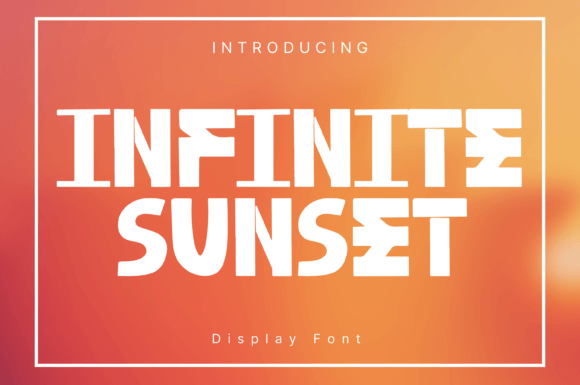
Immerse yourself in the enchanting realm of Infinite Sunset, a font that exudes a vibrant, playful spirit. This captivating display font is an artistic masterpiece, meticulously crafted to ignite your creativity and elevate your designs to new heights.
Infinite Sunset boasts an alluring personality, brimming with charm and charisma. Its playful, expressive characters dance across the page, inviting you to embark on a whimsical journey of self-expression. Whether you're composing a heartfelt letter, crafting a captivating website, or designing a vibrant social media post, Infinite Sunset effortlessly captures the essence of joy and imagination.
Step into a world where creativity knows no bounds. Infinite Sunset seamlessly adapts to a myriad of projects, transforming your ideas into captivating visual masterpieces. Its versatility empowers you to infuse your designs with a touch of whimsy and enchantment, leaving an indelible mark on your audience.
Imagine a font that effortlessly complements your every creative pursuit. Infinite Sunset's boundless potential knows no limits. Whether you're crafting a captivating logo, designing a stunning website, or creating eye-catching marketing materials, this versatile font becomes an indispensable tool in your creative arsenal. Its playful spirit and enchanting charm will captivate your audience, leaving them mesmerized by your creations.
With Infinite Sunset, the possibilities are as limitless as your imagination. Unleash your creativity and let your ideas take flight. Each character is a stroke of genius, a testament to the artistry and passion that went into its creation. Allow Infinite Sunset to be your creative companion, inspiring you to weave tales of enchantment and wonder through the art of typography.
So, why settle for ordinary when you can embrace the extraordinary? Embark on a creative adventure with Infinite Sunset today and let your designs shine with unparalleled brilliance and captivating charm. Let this whimsical display font ignite your imagination and transform your creative visions into unforgettable masterpieces.